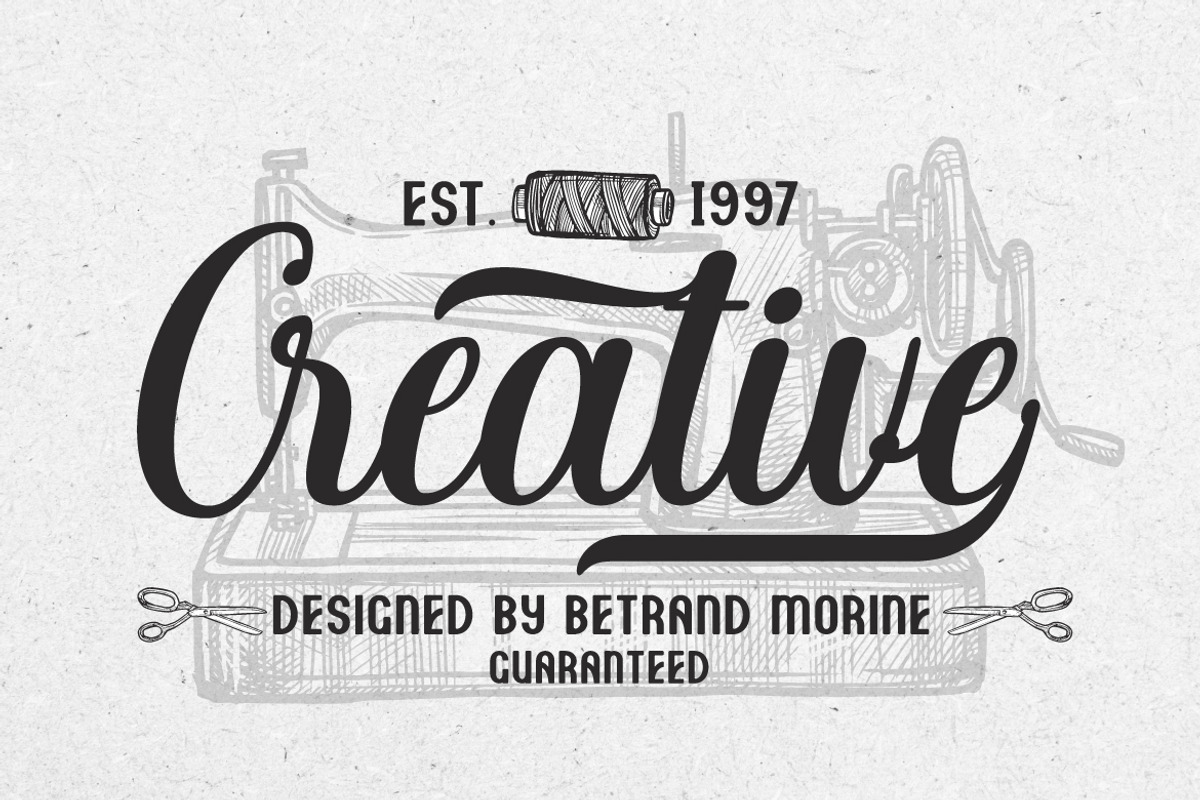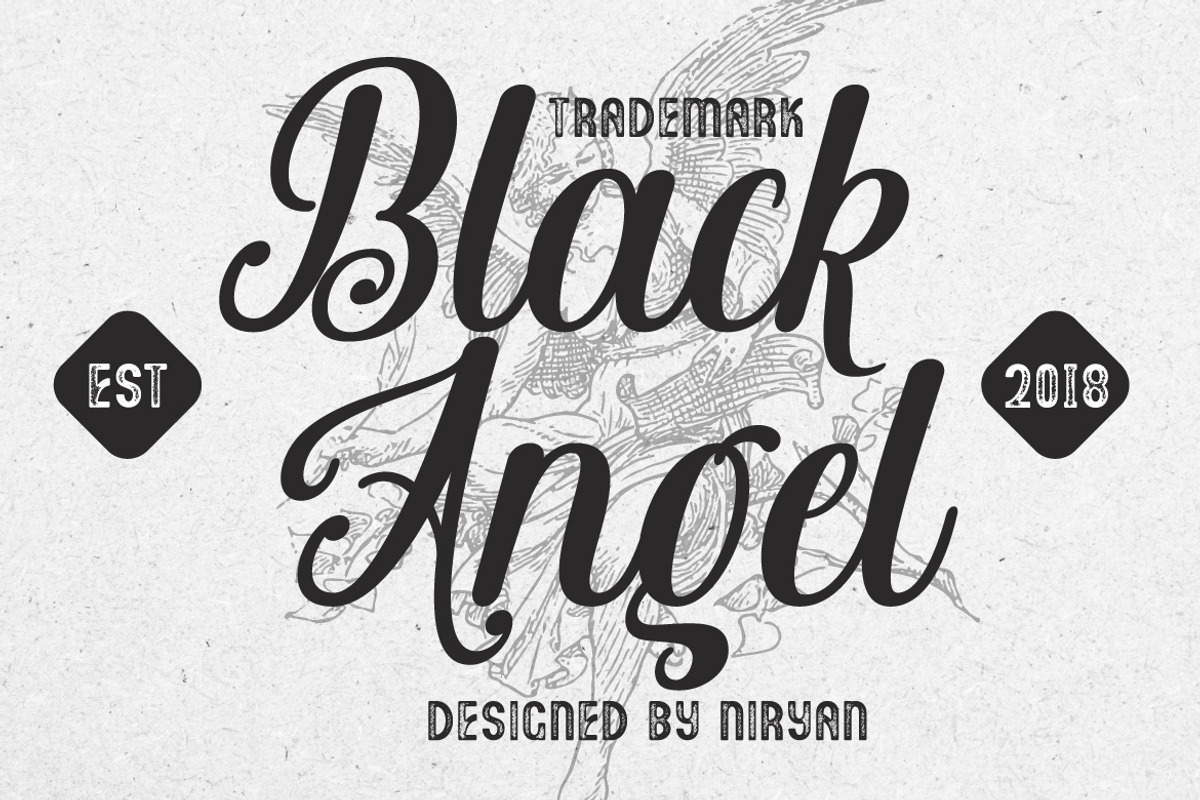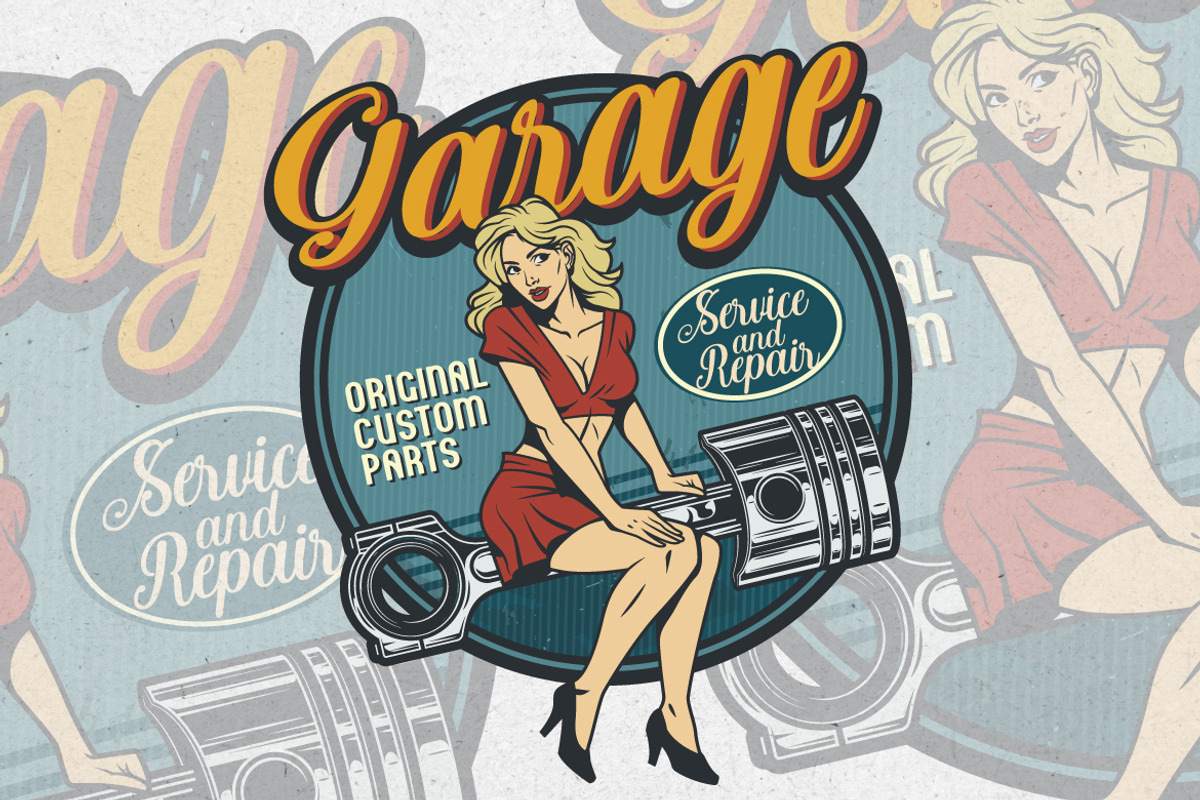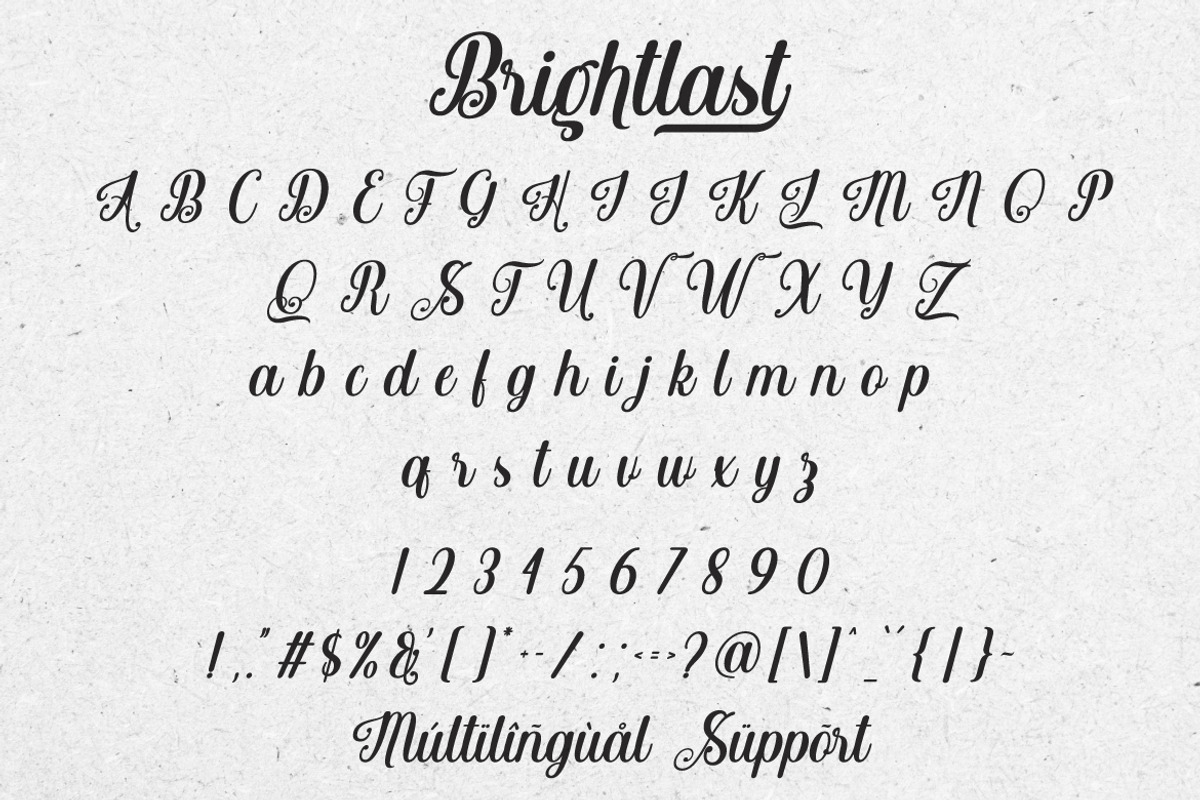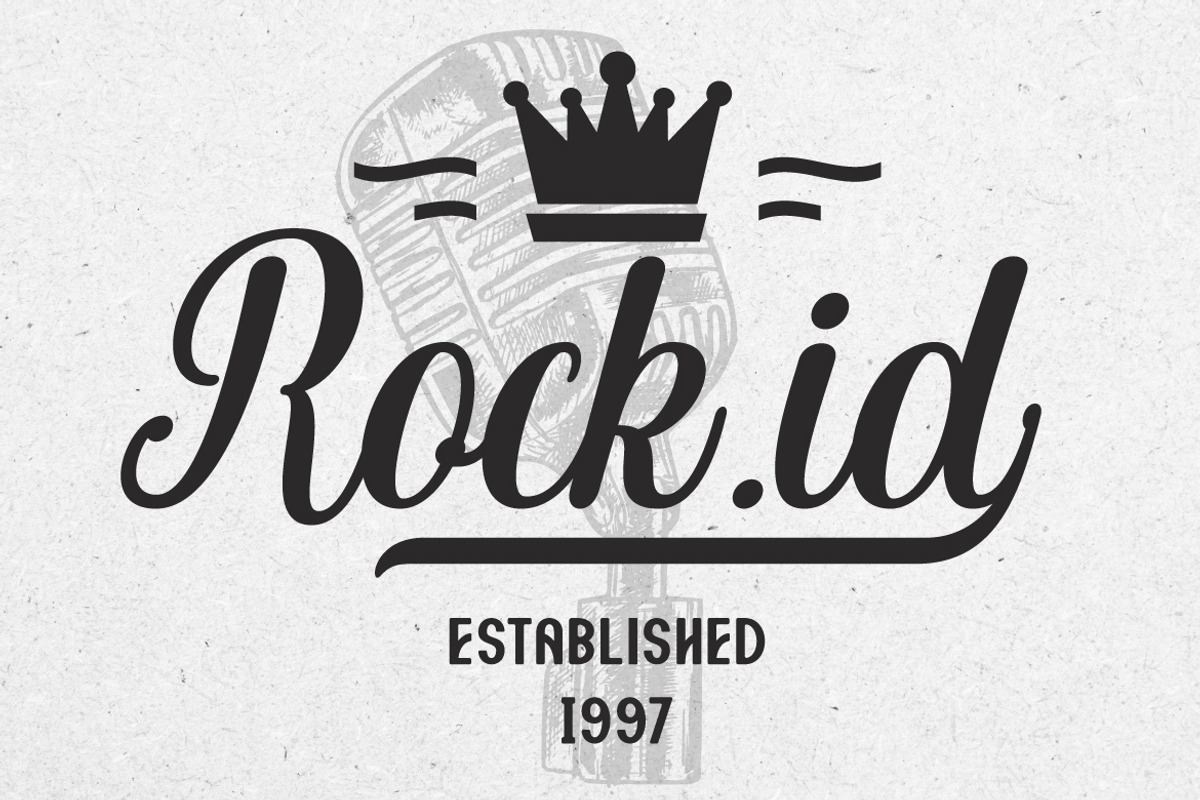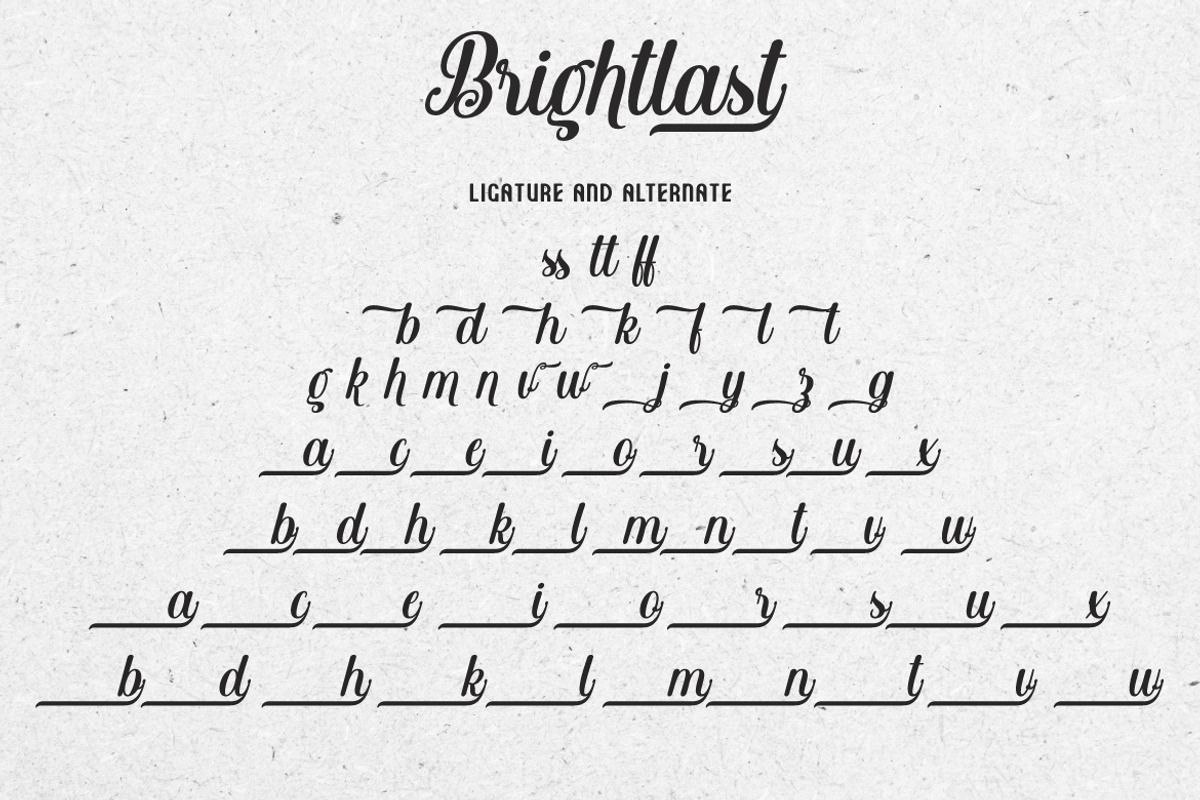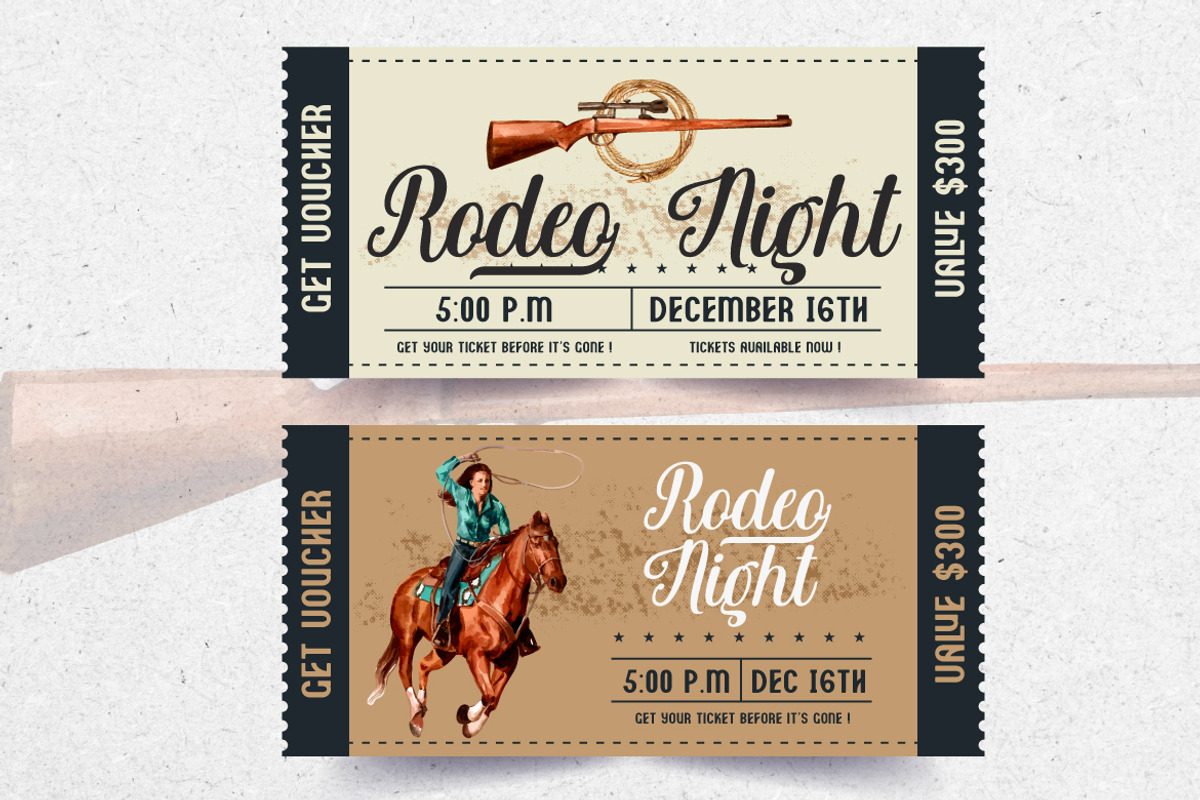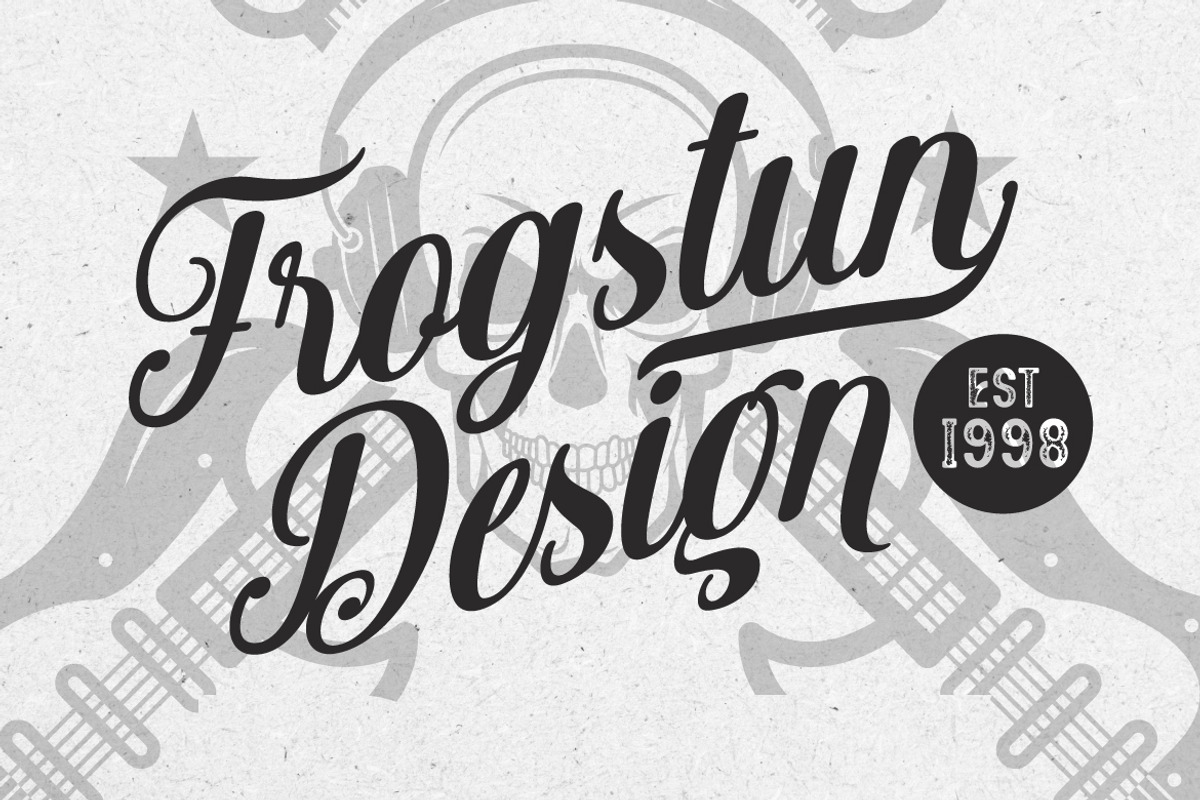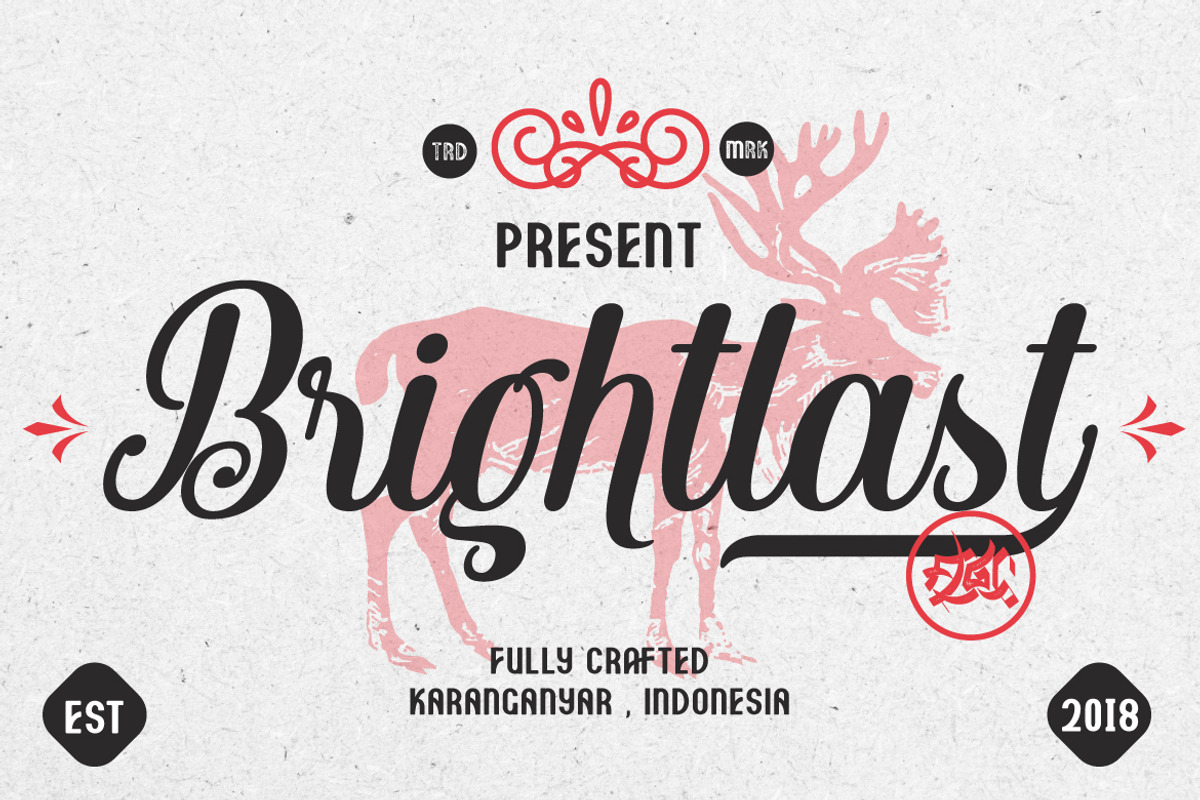
Brightlast - a Vintage Script Font
Introducing Brightlast
Brightlast font under inspiration of vintage bar signage, hotel signage, barbershop signage ect. Brightlast has a classic impression but still elegant suitable for modern and classic designs project. Brightlast are perfect for badge, label, tshirt design, branding, logotype,poster, book cover, packaging and more.
- Character Set A-Z
- Numberal
MULTiLINGUAL ACCENT
žŠŒšŸÀÁÂÃÄÅÆÇÈÉÊËÌÍÎÏÐÑÒÓÔÕÖØÙÚÛÜÝßàáâãäåæçèéêëìíîïðñòóôõöøùúûüýÿ